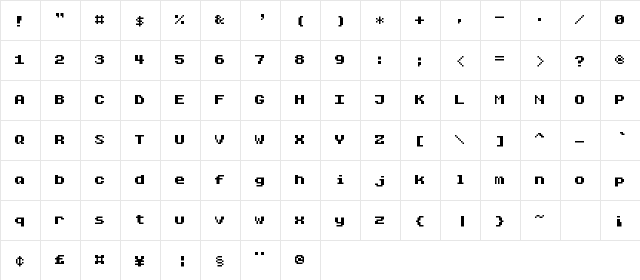
Caja Medium
Design Context for Caja Typeface
Caja offers clean, dependable letterforms without strong stylistic allegiance, making it a practical choice for designers who need flexibility.